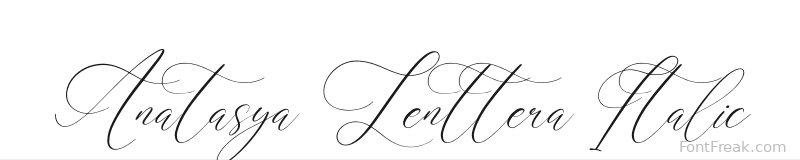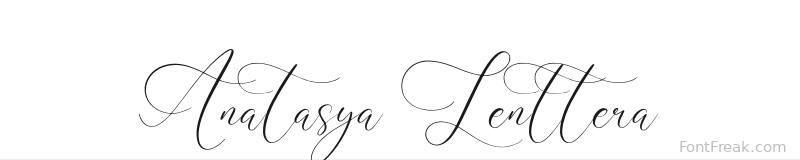
Anatasya Lenttera Italic
Anatasya Lenttera
About Anatasya Lenttera Italic
Anatasya Lenttera Italic is a stunning script font designed by Perspectype Studio, released in 2021. This font embodies a delicate and flowing style that captures the essence of elegance and creativity. As a script typeface, it features graceful curves and flourishes, making it a perfect choice for projects that require a touch of sophistication. The stroke weight varies, providing visual interest with its light and airy appearance, while the contrast between thick and thin lines adds depth to the overall design. The generous spacing between the letters enhances legibility while maintaining the fluidity characteristic of script fonts.
Best suited for a variety of applications, Anatasya Lenttera Italic works beautifully in wedding invitations, where its romantic flair can set the tone for a special day. It is also ideal for upscale restaurant menus, offering an elegant aesthetic that complements fine dining experiences. Additionally, this font can enhance branding materials for boutiques or artisanal shops, helping to convey a sense of quality and craftsmanship. Content creators will find it useful for social media graphics and promotional materials, as it adds a personalized touch to digital content.
Targeting graphic designers, small business owners, and content creators alike, Anatasya Lenttera Italic appeals to those seeking a unique and stylish typeface. The font's versatility ensures it can adapt to a variety of themes, from whimsical to refined.
What truly sets Anatasya Lenttera Italic apart is its ability to blend elegance with readability, making it a standout choice for any design project. Whether you're looking to create a memorable wedding invitation or a captivating branding piece, this font is a fantastic option. For those interested, the Anatasya Lenttera Italic font free download is available, allowing you to incorporate this exquisite typeface into your creative ventures effortlessly.